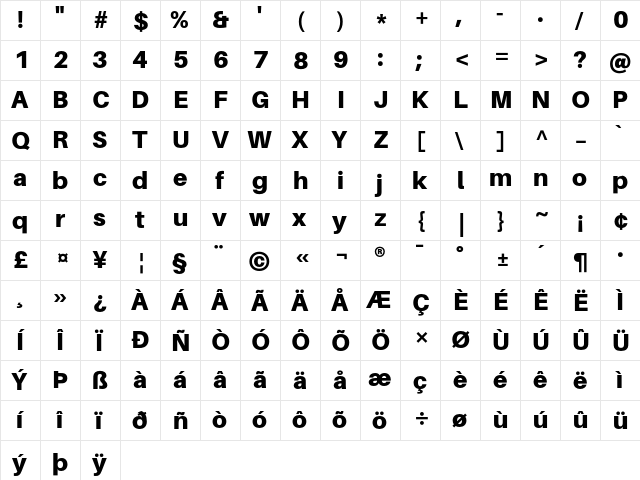
Aileron Black Regular
Design Context for Aileron Black Typeface
Aileron Black offers clean, dependable letterforms without strong stylistic allegiance, making it a practical choice for designers who need flexibility.
Pro Tip: Use Aileron Black in both headline and body roles to test its range before committing to a single application.